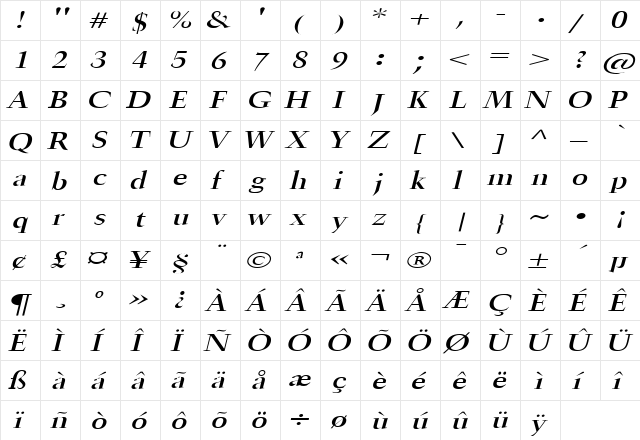
Horn Extended Italic
Design Context for Horn Extended Typeface
Horn Extended takes a measured approach to typography — its balanced proportions and neutral character make it a reliable workhorse for both digital and print work. Its italic angle brings a sense of urgency and motion to the letterforms.
Pro Tip: Use Horn Extended for emphasis, pull quotes, and subheadings where its slanted energy can add rhythm to the layout.